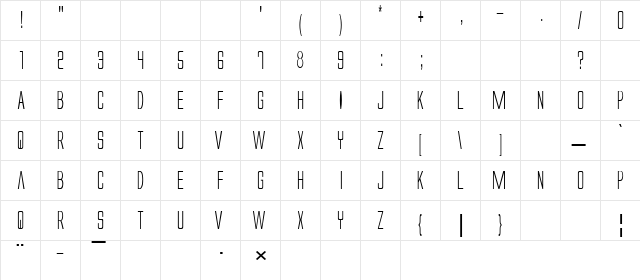
Ultra Vertex11 Regular
| Designer | Ultra Vertex |
Design Context for Ultra Vertex11 Typeface
Ultra Vertex11 takes a measured approach to typography — its balanced proportions and neutral character make it a reliable workhorse for both digital and print work.